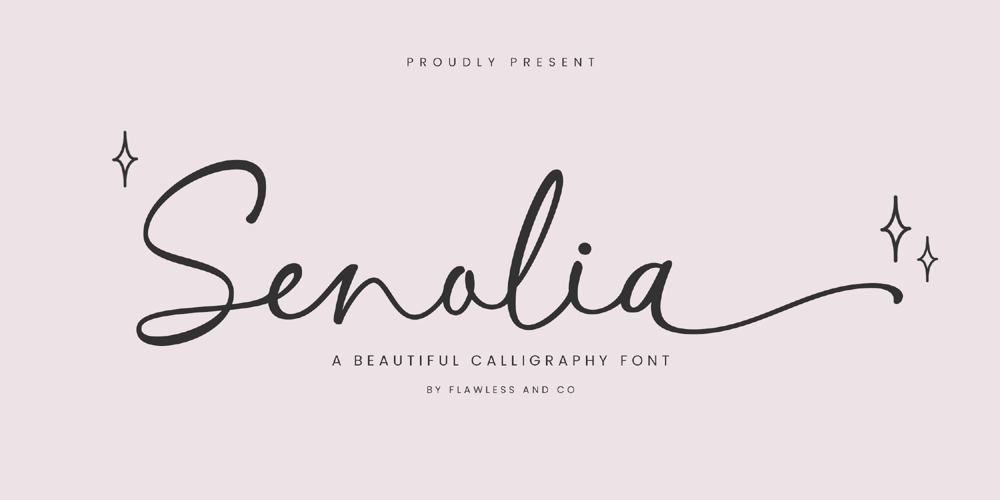
Senolia Font Family was designed by Achmad Yani and published by Flawlessandco. Senolia contains 1 styles and family package options. Senolia – Calligraphy Font, Script Font, Wedding Font, Invitation Font, Logo Font, Brand Font, Interior Design Font, Trademark Font, Modern Font, Canva Font, Cricut Font, Cursive Font, Procreate FontIntroducing “Senolia” a beautiful calligraphy font. Embrace the artistry of handwritten elegance with “Senolia,” a stunning calligraphy script font that epitomizes grace and sophistication. Crafted with precision and finesse, Senolia transforms every stroke into a symphony of beauty, making it the perfect choice for wedding invitations, branding, and upscale designs.Keywords: Script Font, Calligraphy FontThere’s some connected letters and some alternates that suitable for any graphic designs such as branding materials, t-shirt, print, business cards, logo, poster, t-shirt, photography, quotes .etcThis font support for some multilingual. Also contains uppercase A-Z and lowercase a-z, alternate character, numbers 0-9, and some punctuation.If you need help, just write me! Thanks so much for checking out my shop!